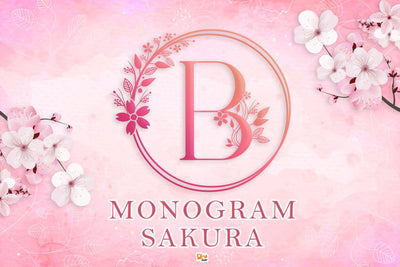
Monogram Sakura
Introducing this beauty, well designed Monogram Font decorated with Sakura or cherry blossom flower wreath. Perfect for your flowery spring season!
Monogram Sakura comes in beautiful details and minimal nodes, great for your crafty purposes, diy projects, logo for your business, cutting projects, decorations and much more.
- All in Caps Monogram with Sakura Wreath